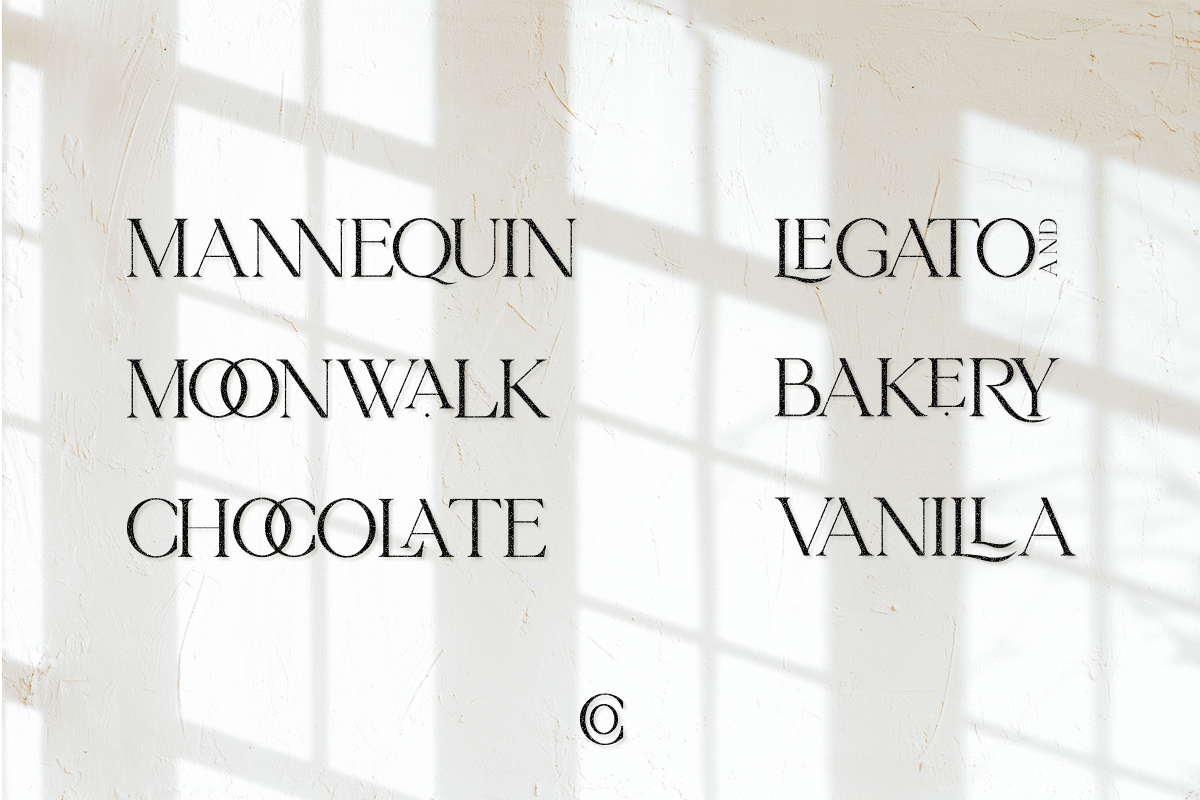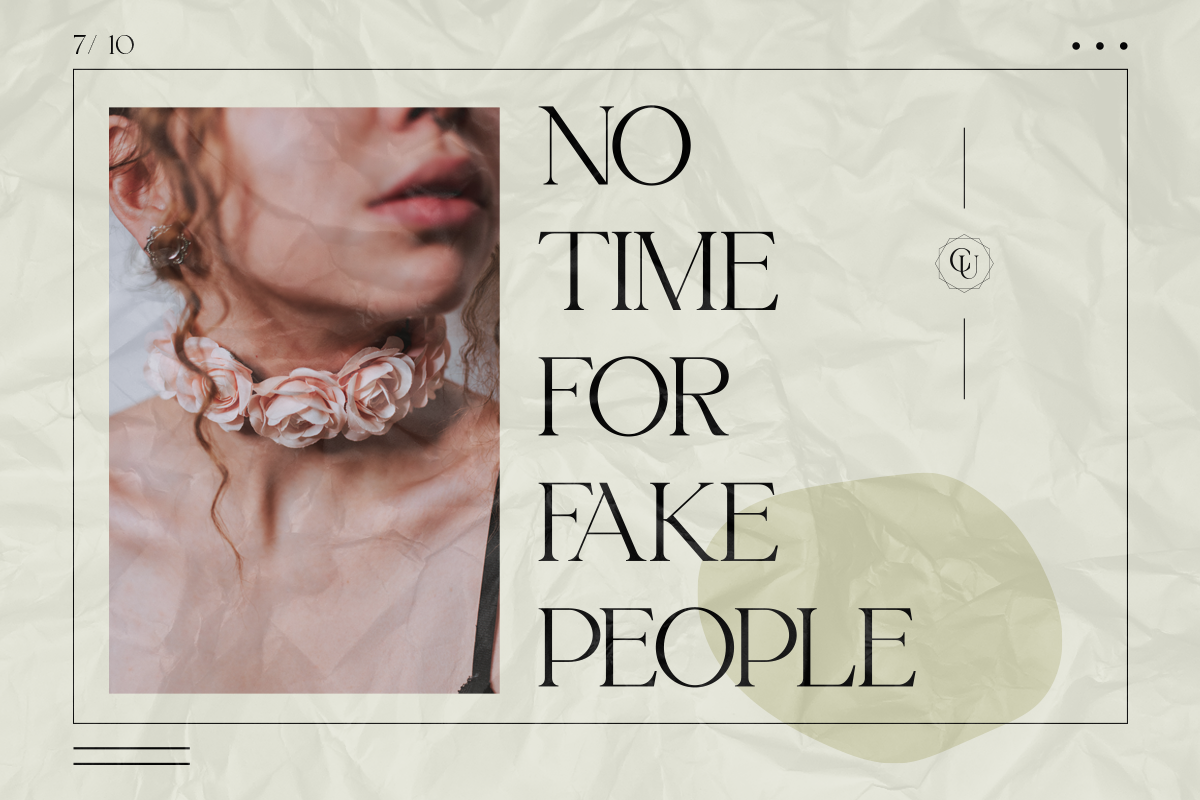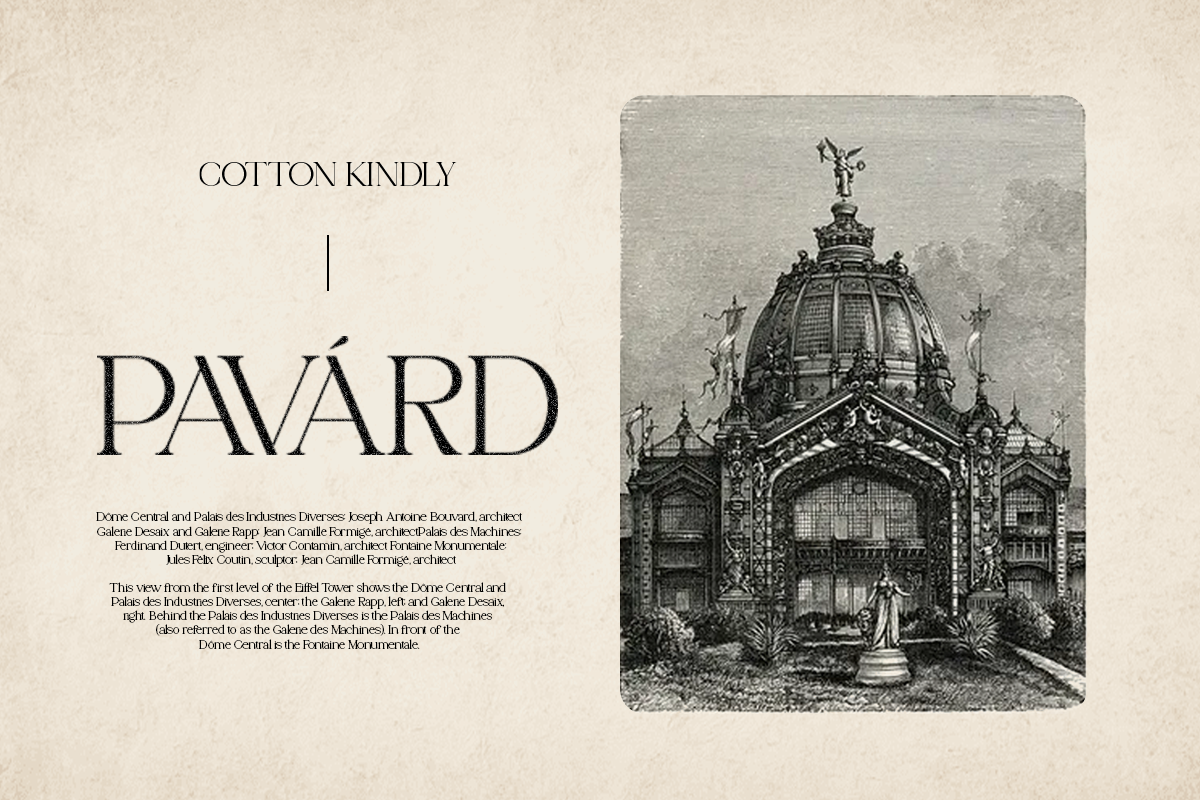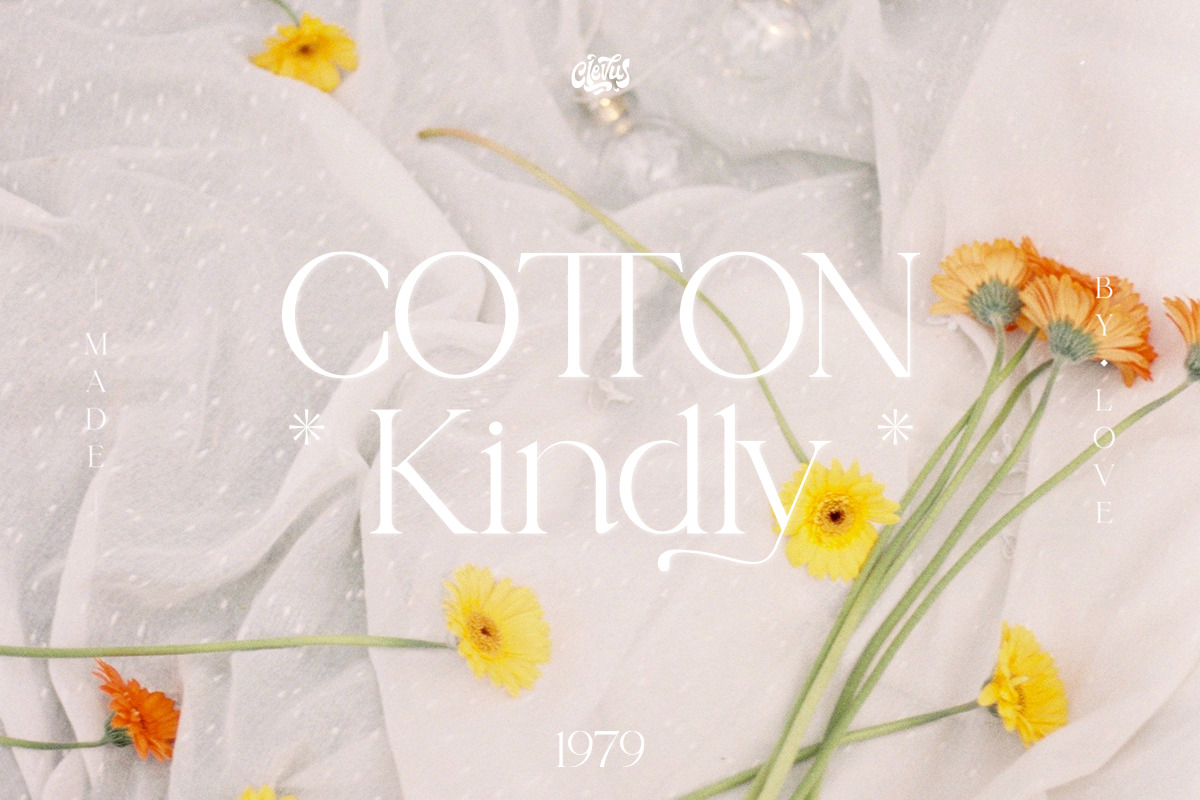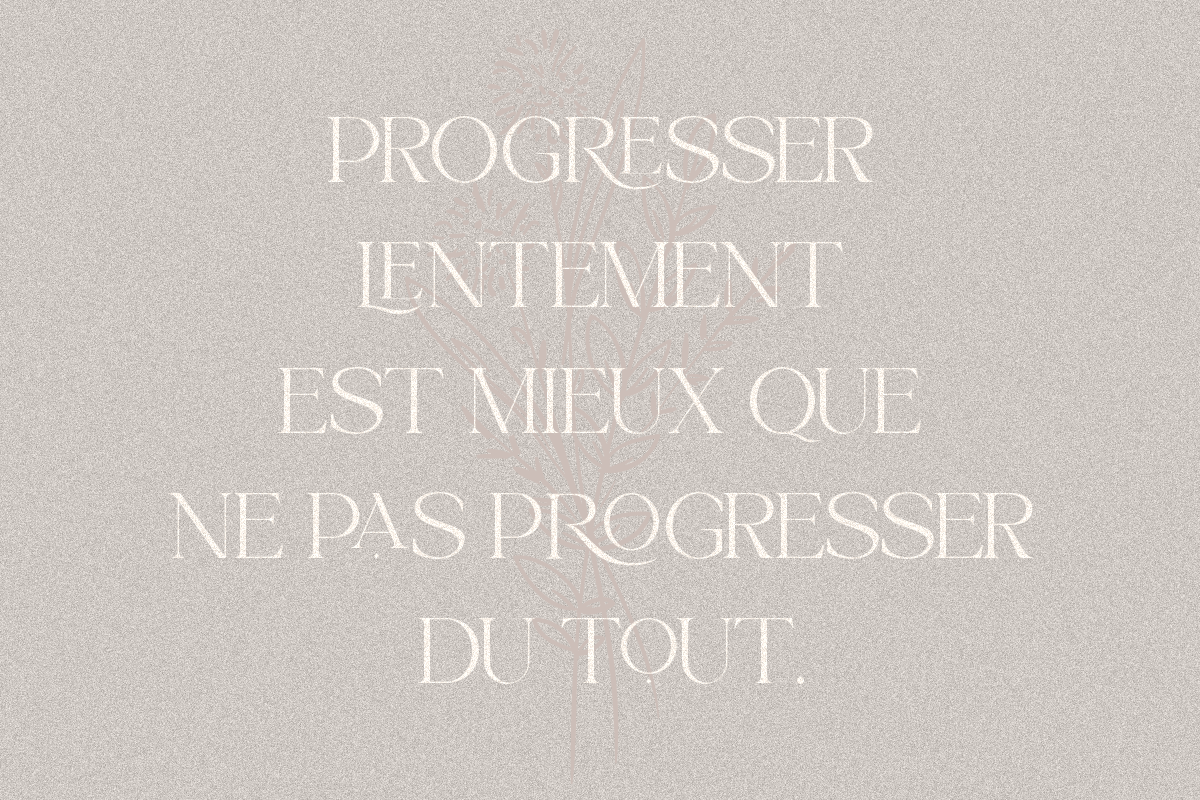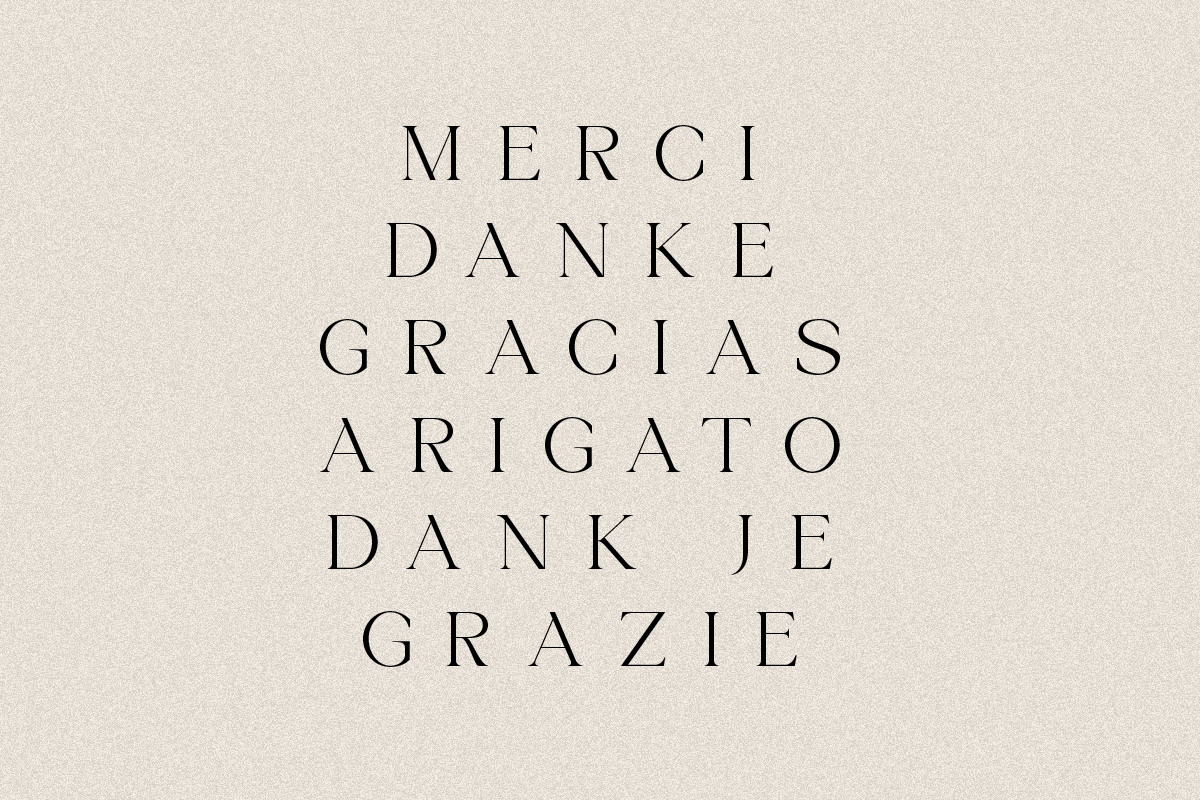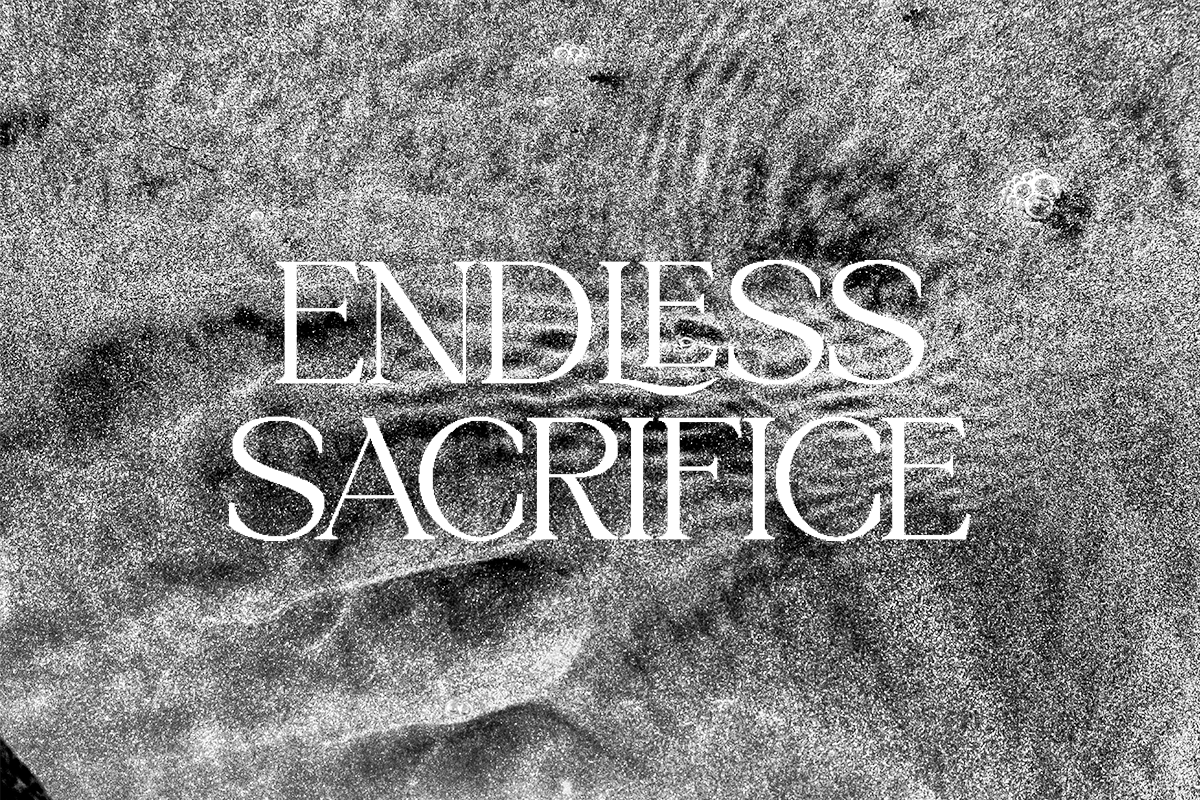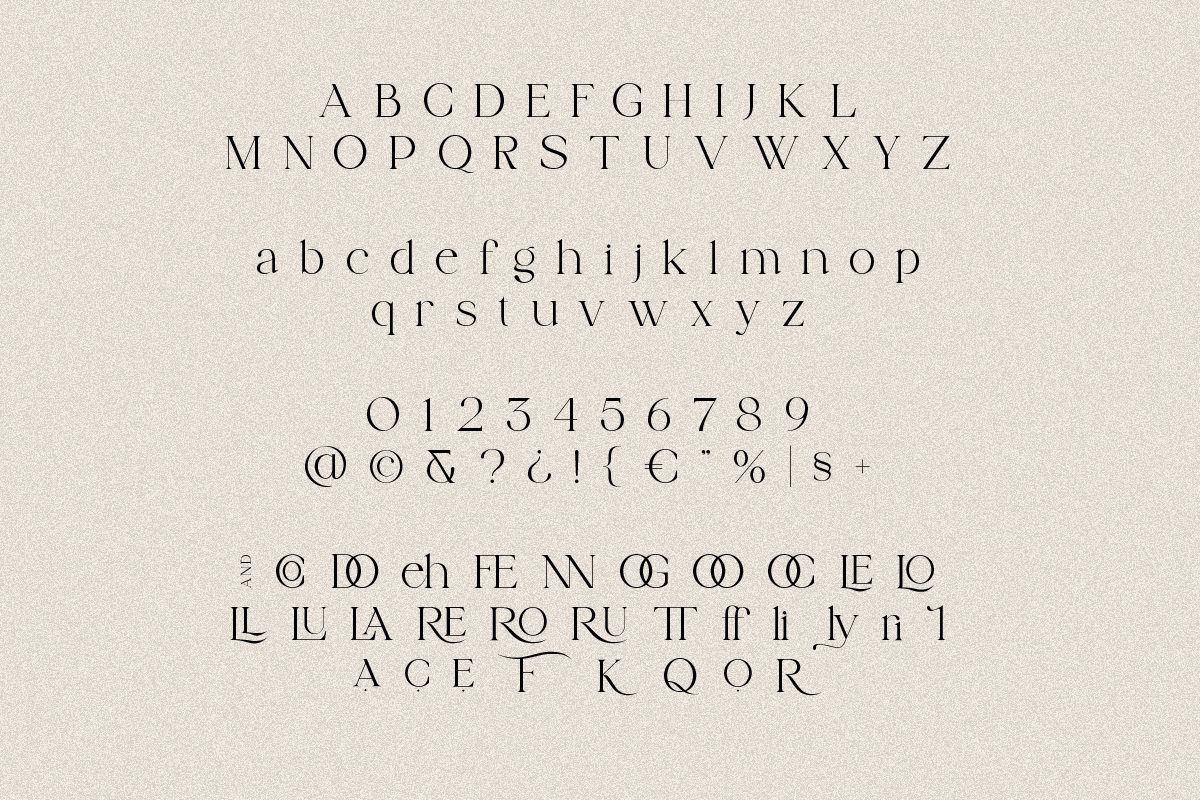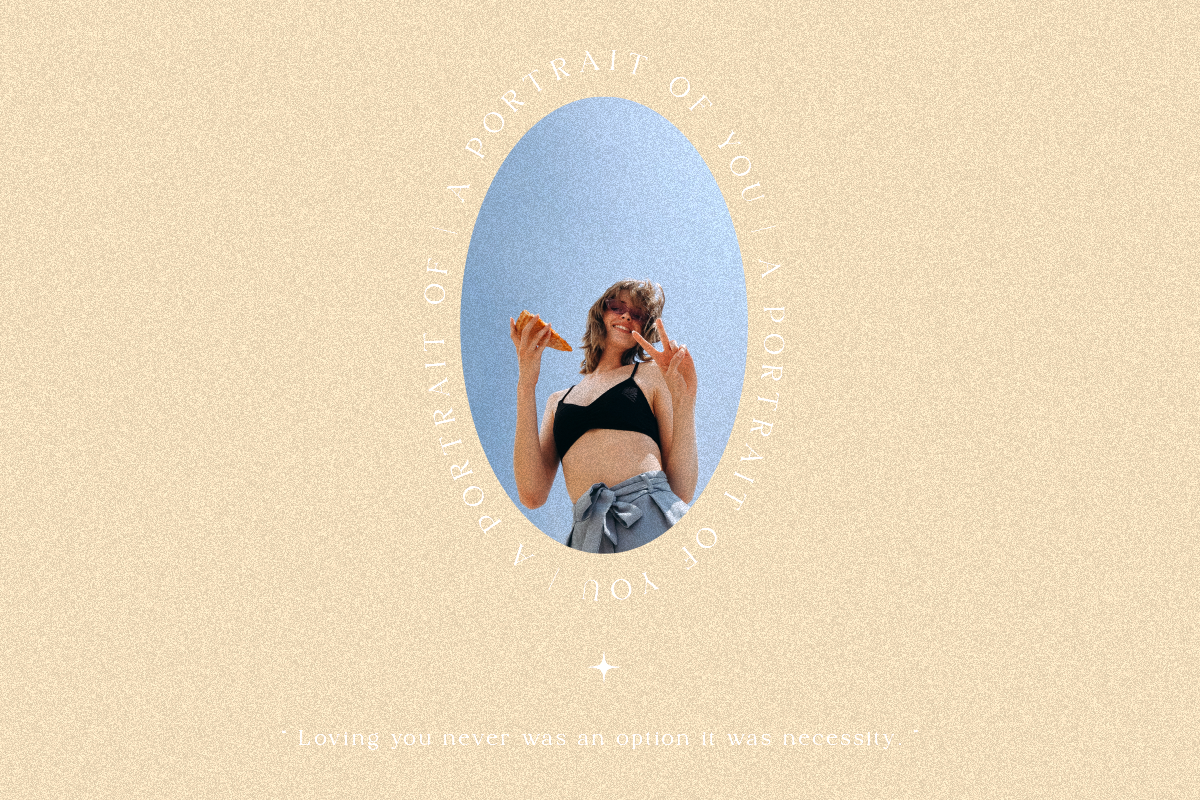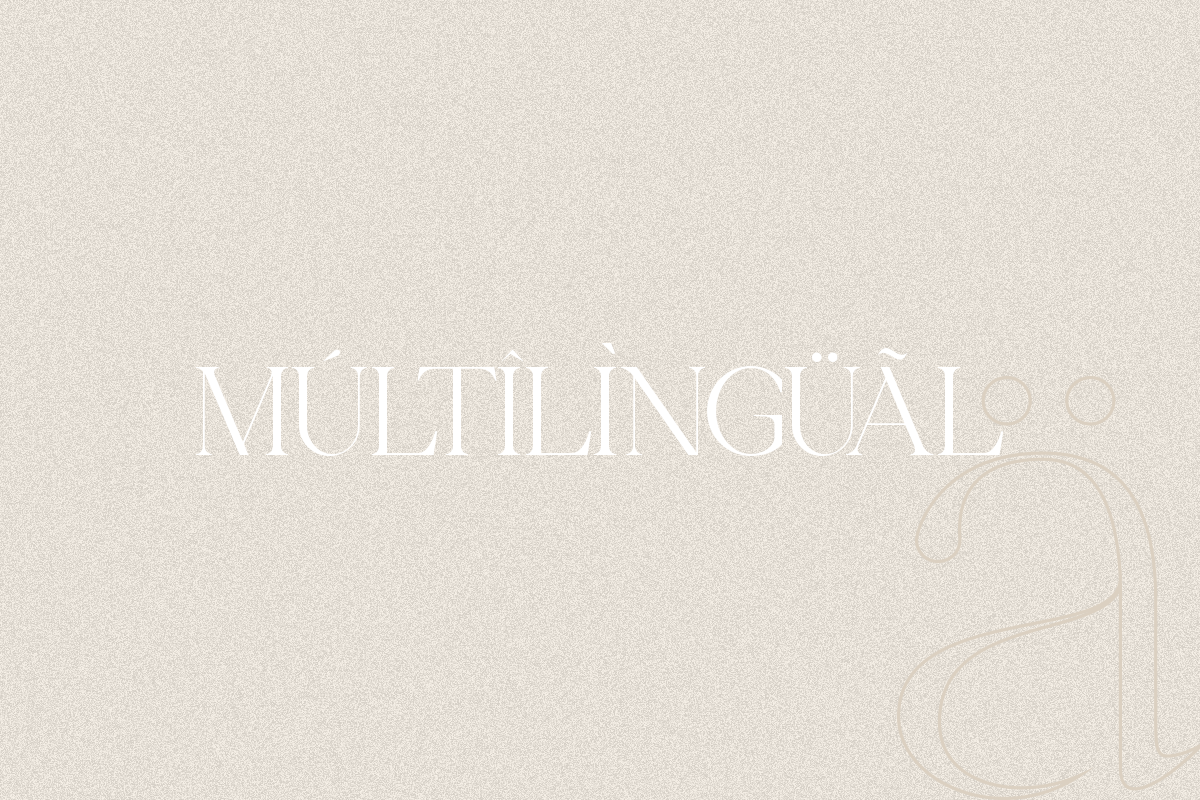
Cotton Kindly - Modern Serif Font
Proudly present Cotton Kindly Typeface, created by ClevUs, A serif modern and classic typeface that has own unique style & modern look. This typeface is perfect for an elegant & luxury logo, book or movie title design, fashion brand, magazine, clothes, lettering, quotes, and so much more.